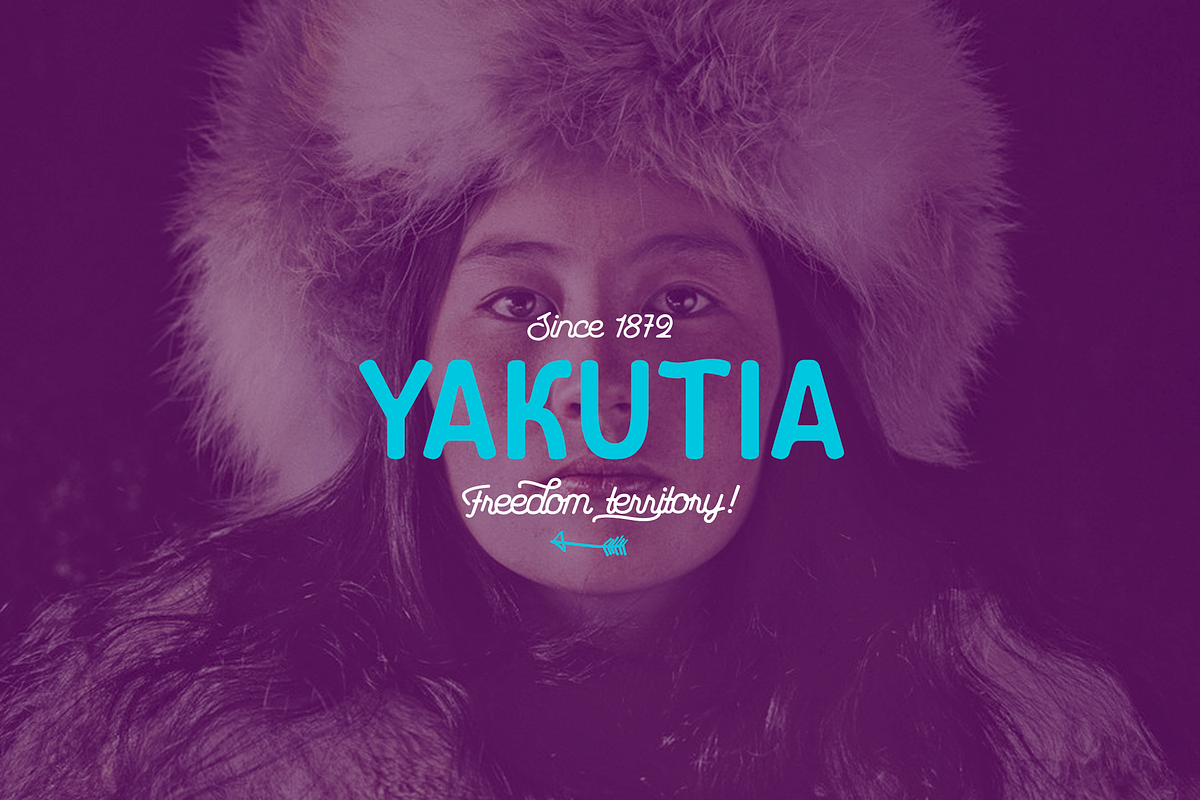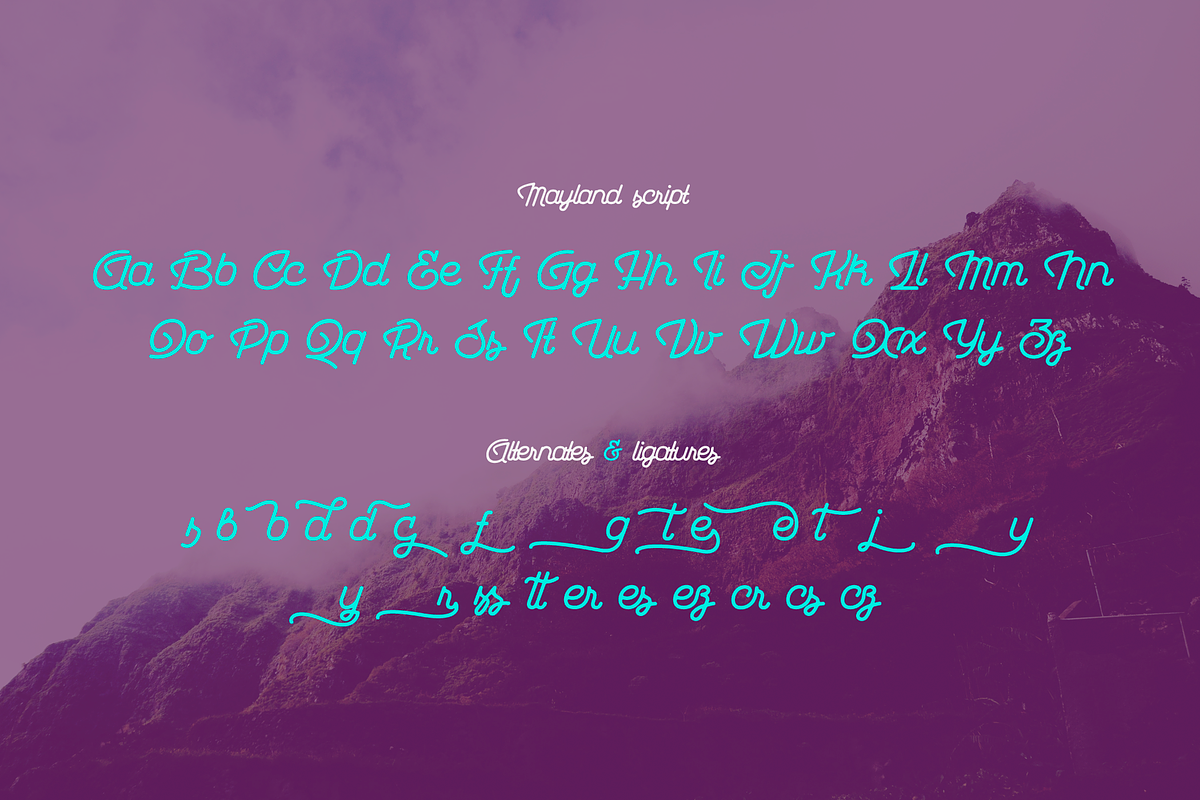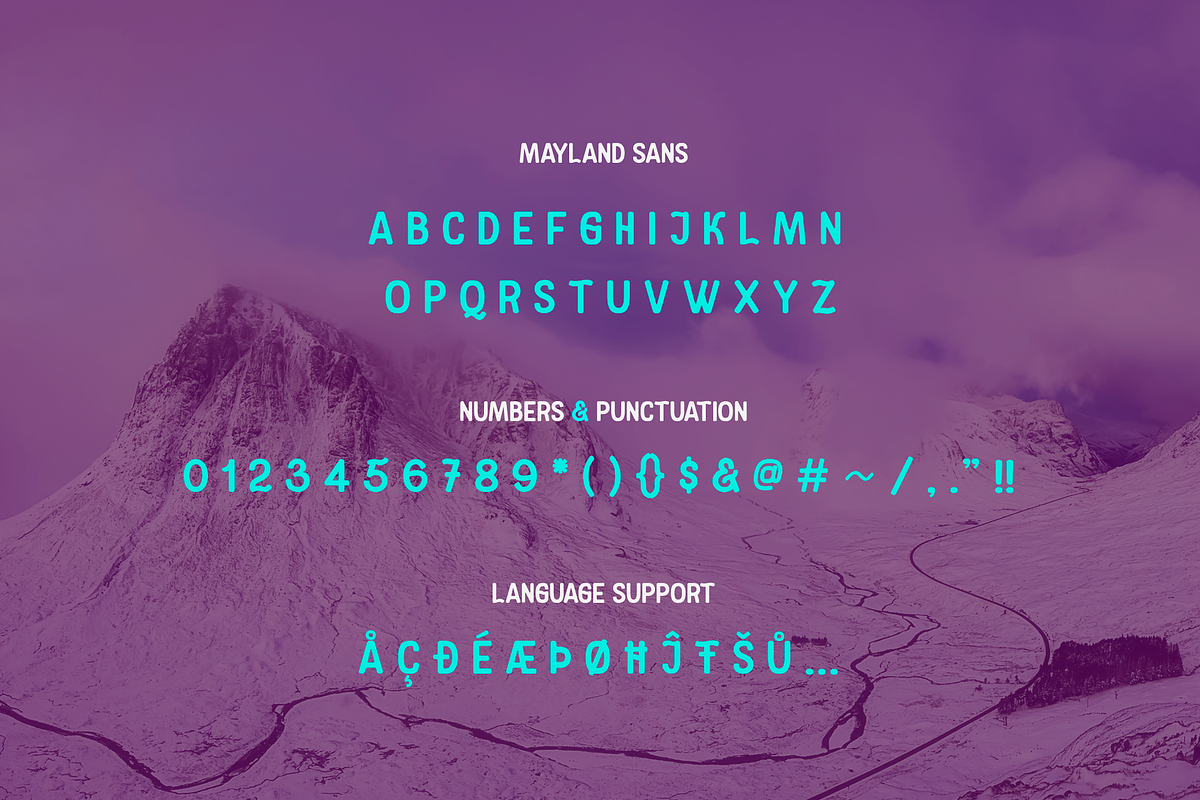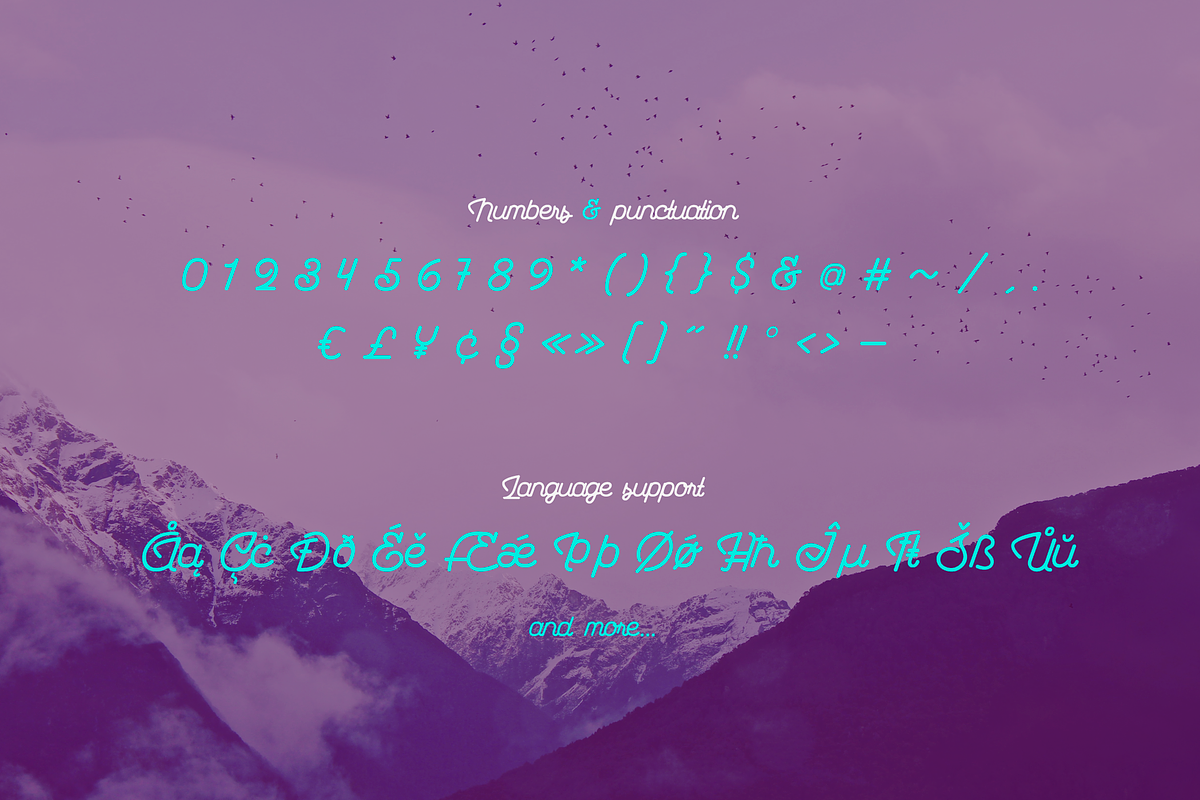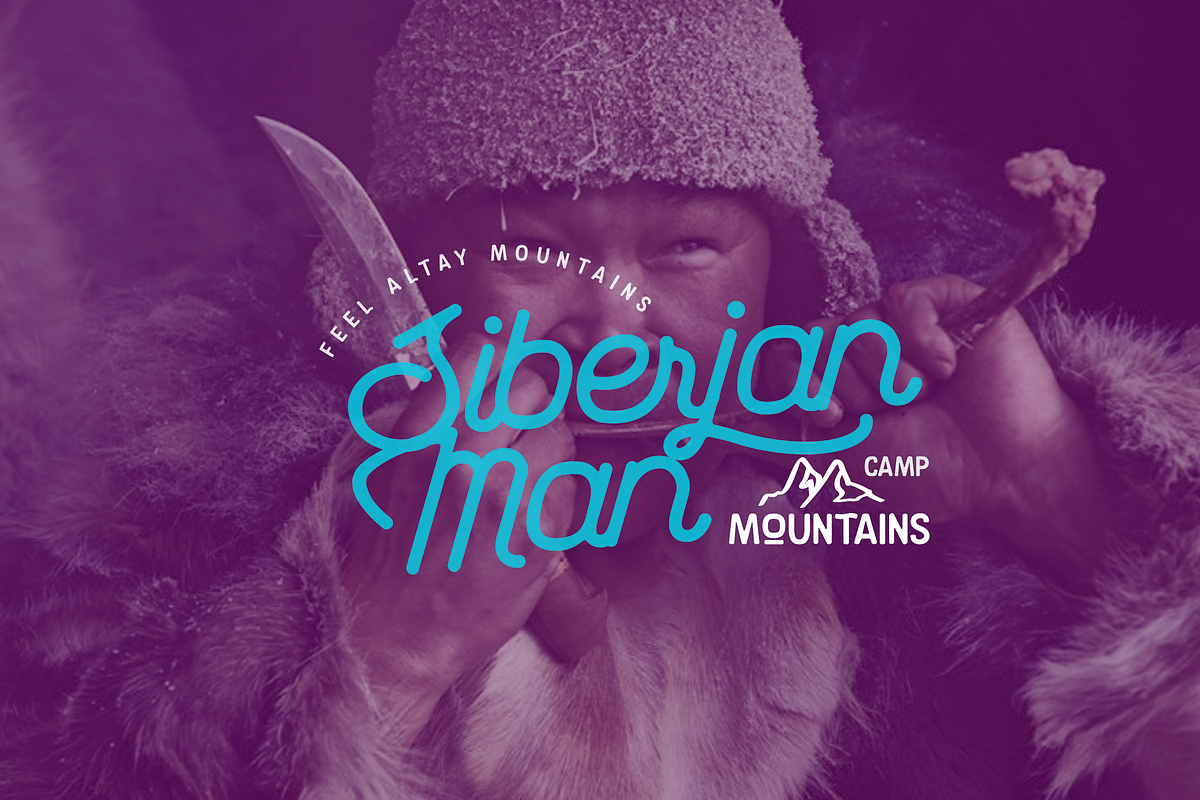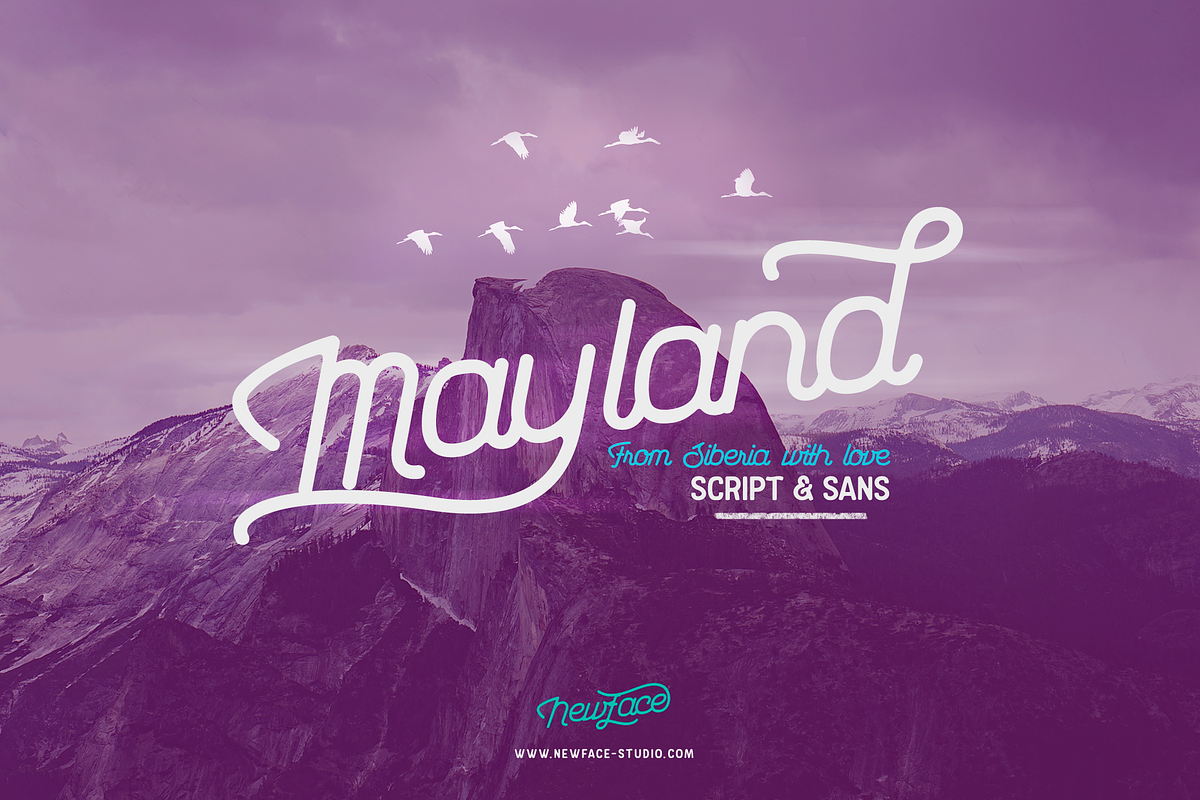
Mayland Font Duo
Mayland Font Duo by Newface is a font selected for branding, posters, packaging, typography.
Why Mayland Font Duo is worth a look
Mayland Font Duo by Newface fits naturally into Branding, posters, packaging, typography.